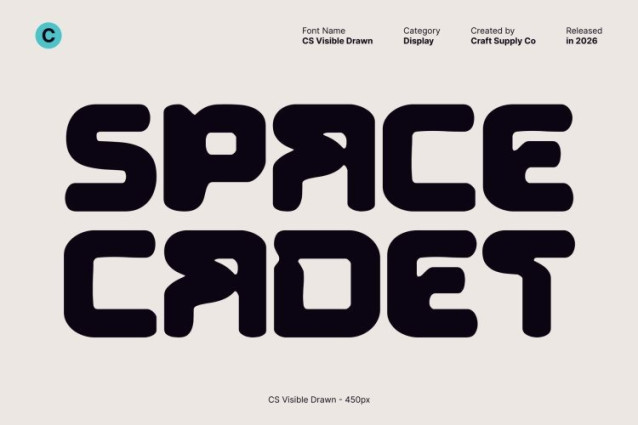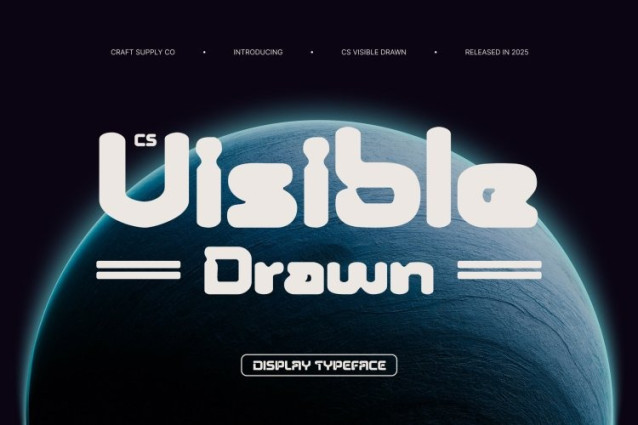
CS Visible Drawn Font
CS Visible Drawn Font This is a techno-inspired sans serif font that embodies strength, clarity, and modern energy. Built on sleek geometric construction and confident proportions, it delivers a futuristic visual presence. The drawn effect introduces subtle organic imperfections, adding character and uniqueness while preserving its sharp, high-tech attitude.
Flowing Geometry with Dynamic Expression
Smooth, flowing shapes bring movement and rhythm to the font’s clean, industrial structure. The interplay between crisp edges and gentle curves creates a modern, forward-looking aesthetic, while the drawn details soften the precision just enough to give the font a distinctive, expressive voice.
Powerful Structure with Clear Readability
Designed for clarity and impact, this font features bold proportions and well-defined letterforms that remain highly readable at display sizes. Its consistent structure and geometric refinement make it ideal for logos, posters, and branding that require a strong, assertive, and professional presence.
Versatile for Futuristic and Contemporary Design
Perfect for digital media, technology branding, advertising, and futuristic product design, this font adapts seamlessly across modern applications. It brings a confident, innovative tone to headlines and identities, making it a reliable choice for projects that aim to communicate progress, precision, and creative vision.